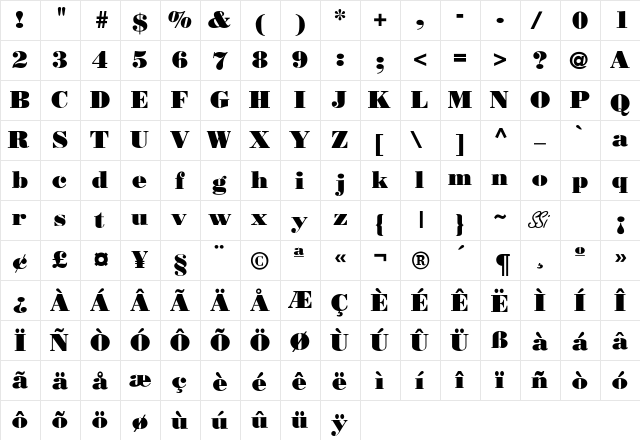
Bodoni Poster SSi Poster Bold
Design Context for Bodoni Poster SSi Typeface
Bodoni Poster SSi offers clean, dependable letterforms without strong stylistic allegiance, making it a practical choice for designers who need flexibility. The heavy weight commands attention and anchors typographic hierarchies.